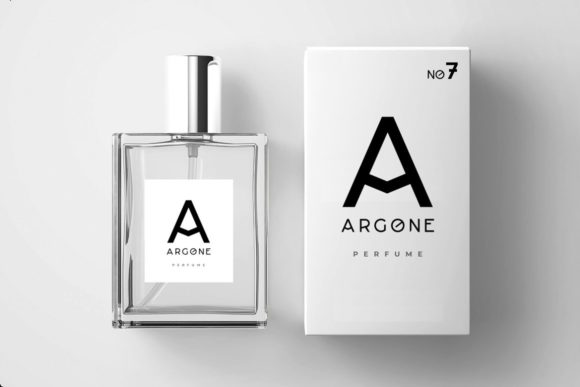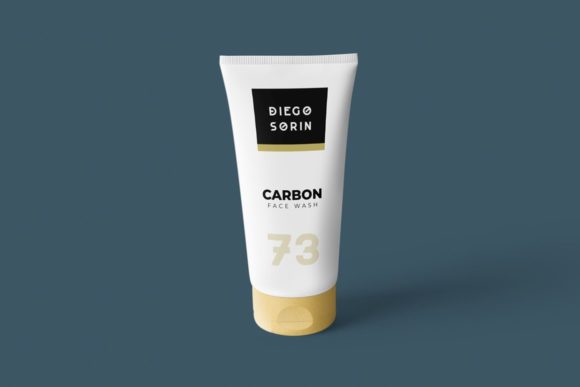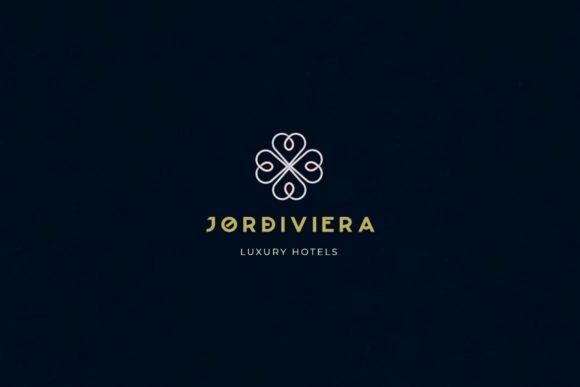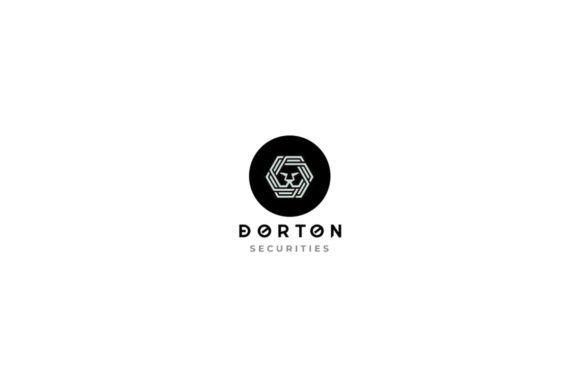
The Perfect Blend of Modernity and Minimalism
As designers, we’ve all been there – staring at a blank canvas, trying to conjure up the perfect idea. The spark of creativity hits, and suddenly, our minds are racing with possibilities. It’s in these moments that the right tools can make all the difference. That’s where Augor Font comes in – a clean and modern display font designed to give your designs a smart, cool touch.
Augor Font is more than just a font – it’s a way to elevate your brand’s visual identity. Whether you’re working on a web design, logo, or any other project, this minimalist and techno-styled font is the perfect addition to give it that extra oomph. For designers, Augor Font offers a valuable resource to add a touch of sophistication to their work, making it stand out in a crowded digital landscape.
Augor Font Key Features
- Font Family: Augor is a sans-serif font family designed for modern and minimalist designs. It is available in multiple weights, from light to bold.
- Unique Characteristics: Augor Font features a distinctive geometric shape, clean lines, and a modern aesthetic, making it suitable for digital and print media.
- Language Support: Augor Font supports multiple languages, including Latin, Cyrillic, and Greek alphabets, making it a versatile font for global designs.
Augor Font Review
Overall, I found the Augor Font to be a decent addition to any designer’s toolkit. The font’s clean and modern aesthetic ✨ makes it perfect for use in corporate branding, digital products, and even print materials. I particularly liked the font’s versatility, as it can be used for both body text and headings.
Here are some specific things that I think work well in the Augor Font:
- ✨ Clean and modern aesthetic: The font’s design is sleek and contemporary, making it perfect for modern brands.
- ✨ Good legibility: The font is easy to read, even at smaller font sizes.
- ✨ Wide language support: The font supports a wide range of languages, making it a great choice for global brands.
However, there are a few limitations to the Augor Font that I’d like to mention:
- ⚠️ Limited expressiveness: The font is a bit too simple and lacks the expressiveness of some other fonts.
- ⚠️ Not ideal for highly creative projects: The font’s clean design may not be the best choice for projects that require a lot of flair or personality.
Overall, I think the Augor Font is a solid choice for designers who need a clean and modern font for their projects. While it may not be the most exciting font out there, it gets the job done and looks great in a variety of contexts.